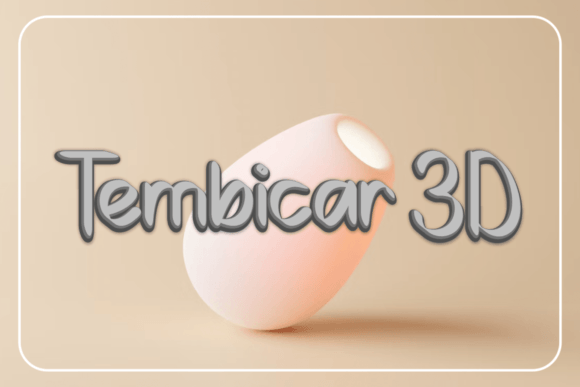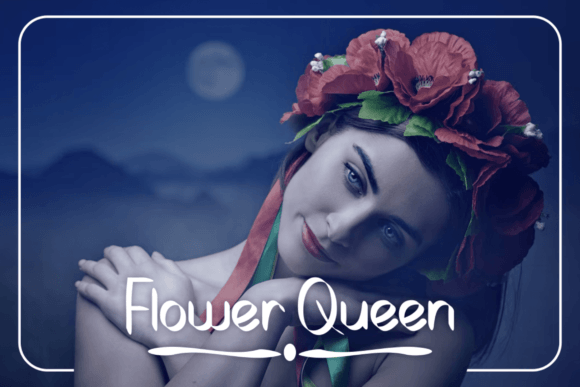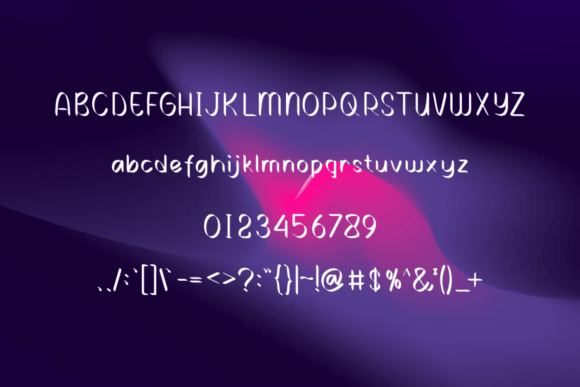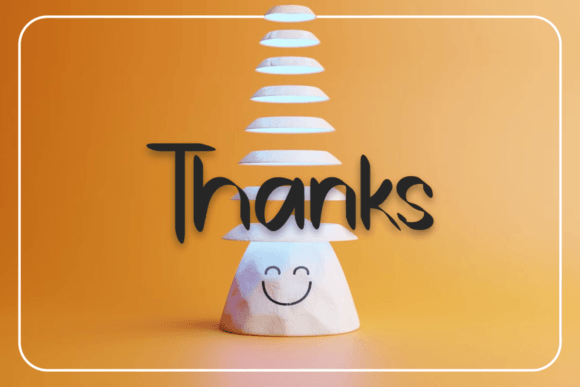
Introducing HalusanMaya Font: The Bold and Authentic Handwritten Font for Your Branding Needs
In the world of design, fonts play a crucial role in conveying the tone and personality of a brand. A well-chosen font can elevate a brand’s visual identity and make it stand out from the competition. If you’re a designer or crafter looking for a bold and authentic handwritten font to take your branding projects to the next level, look no further than HalusanMaya.
What is HalusanMaya Font?
HalusanMaya is a bold and authentic handwritten font designed to make a statement. With its unique and eye-catching style, this font is perfect for any branding project that requires a touch of personality and flair. Whether you’re working on a logo, t-shirt printing, e-sport, or any other project, HalusanMaya is sure to impress.
Key Features of HalusanMaya Font
- Bold and Authentic: HalusanMaya is a bold and authentic handwritten font that exudes confidence and personality.
- Versatile: This font is suitable for a wide range of contexts, from logos and t-shirt printing to e-sport and more.
- Easy to Read: Despite its bold style, HalusanMaya is easy to read and understand, making it perfect for use in various design projects.
- Unique Style: HalusanMaya has a unique style that sets it apart from other fonts, ensuring your designs will stand out from the crowd.
Use Cases for HalusanMaya Font
HalusanMaya is a versatile font that can be used in a variety of design projects, including:
- Logo Design: Create a bold and memorable logo for your brand with HalusanMaya.
- T-Shirt Printing: Add a personal touch to your t-shirt designs with this unique and eye-catching font.
- E-Sport: Give your e-sport designs a competitive edge with HalusanMaya’s bold and authentic style.
- Branding and Advertising: Use HalusanMaya to create eye-catching branding and advertising materials that grab attention.
Benefits of Using HalusanMaya Font
By choosing HalusanMaya for your design projects, you’ll enjoy several benefits, including:
- Instant Recognition: HalusanMaya’s unique style ensures instant recognition and sets your brand apart from the competition.
- Professional Look: This font gives your designs a professional and polished look that’s sure to impress.
- Flexibility: This font is versatile and can be used in various design projects, making it a great addition to your font library.